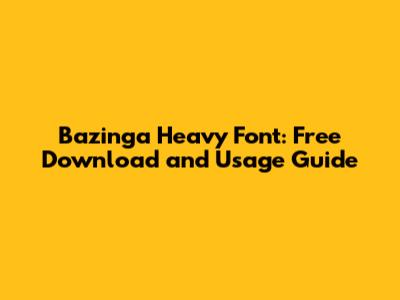
Install the Font: In Font Book, click the "Install Font" button at the bottom of the window. Font Book will validate the font and install it on your system. The validation process checks the font file for errors and ensures that it is compatible with your Mac. If Font Book detects any issues with the font, it will display a warning message and give you the option to cancel the installation. Once the font is successfully validated, Font Book will install it on your system, making it available for use in your applications. The installation process may take a few seconds, depending on the size of the font file and the speed of your computer.
Verify Installation: Open a program like TextEdit or Adobe Illustrator and check if the Bazinga Heavy font is available in the font list. If you don't see the font, try restarting the program or your computer. Sometimes, programs need to be restarted to recognize newly installed fonts. If the font still doesn't appear after restarting, double-check that you have installed the font correctly and that the font file is not corrupted. You can also try reinstalling the font to ensure that it is properly installed on your system. Once you have verified that the font is installed and available in your applications, you can start using it in your design projects.
Use Sparingly: Bazinga Heavy is a bold font, so it's best used for headings, titles, and short bursts of text. Overusing it can make your design look cluttered and overwhelming. Instead of using Bazinga Heavy for all of your text, consider using it sparingly to highlight important information or create visual interest. For example, you could use Bazinga Heavy for the main title of a poster or the headings in a brochure, and then use a more legible font for the body text. This will help to create a clear hierarchy and make your design more readable. Additionally, using Bazinga Heavy sparingly can help to emphasize its unique character and make it stand out even more. By reserving it for key elements, you can ensure that it has the maximum impact and helps to draw the viewer's attention to the most important parts of your design.